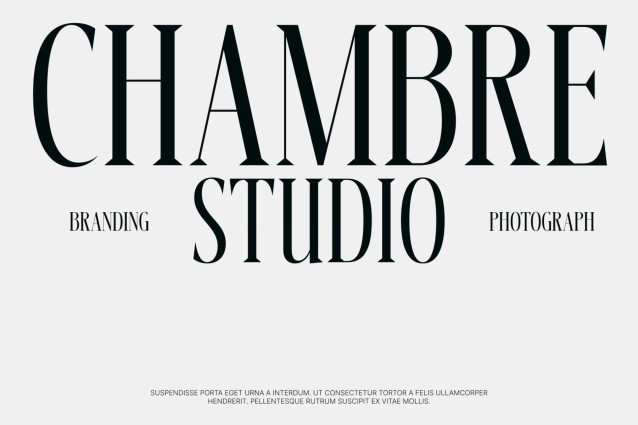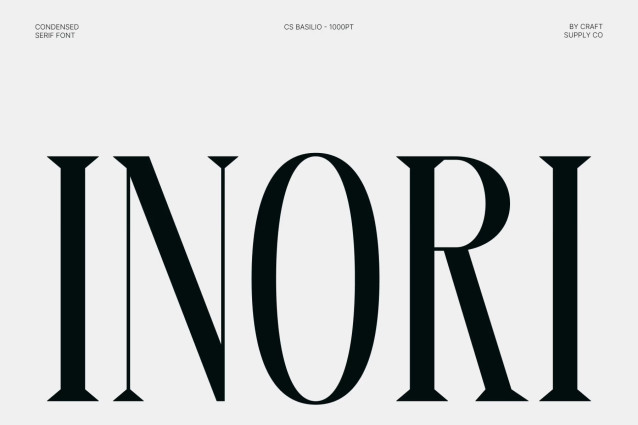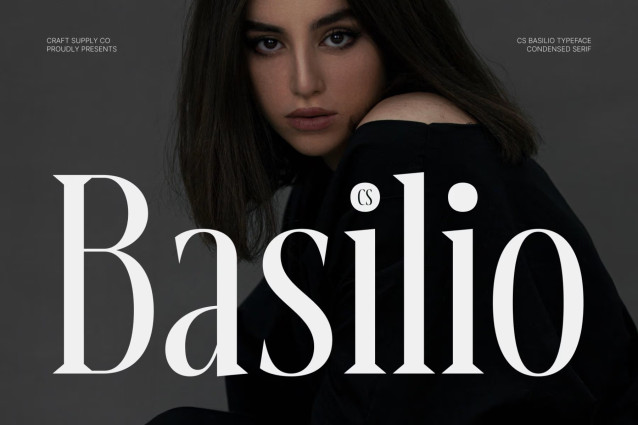
CS Basilio – Condensed Modern Serif Font: Where Graceful Refinement Meets Contemporary Elegance
Slim Proportions with Long Elegant Serifs
This is a condensed modern serif font featuring long, slim serifs and a graceful contemporary silhouette. Its narrow proportions create a refined vertical rhythm, while the elongated serif details add an unmistakable sense of luxury and sophistication. The result is a typeface that feels poised, elegant, and visually distinctive.
Contemporary Form with Artistic Character
This font reimagines classic serif elegance through a modern lens. Its condensed structure enhances visual impact without sacrificing readability, making it ideal for sophisticated display typography. The harmonious combination of slender forms and refined details creates an artistic yet polished aesthetic that elevates every composition.